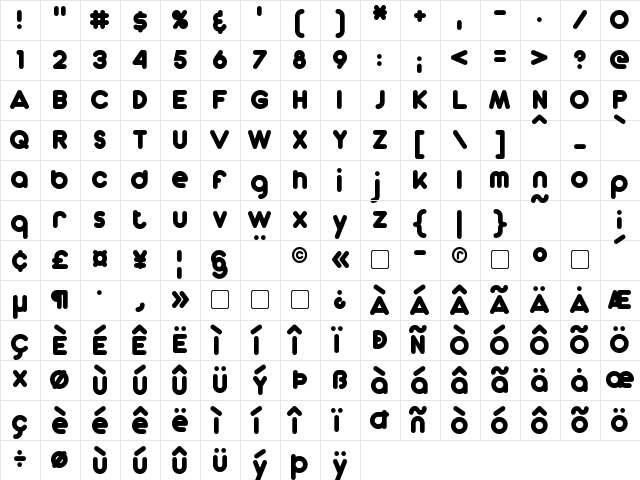
Dunkin Sans Regular
| Foundry | Neale Davidson |
| Designer | Neale Davidson |
Design Context for Dunkin Sans Typeface
Dunkin Sans offers clean, dependable letterforms without strong stylistic allegiance, making it a practical choice for designers who need flexibility.